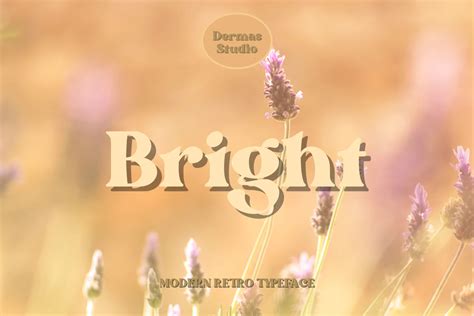
Bright Retro Font. Web bright bright by dharmas studio in fancy > retro 719,849 downloads (272 yesterday) 4 comments free for. Helps to create layout design in.
Web bright bright by dharmas studio in fancy > retro 719,849 downloads (272 yesterday) 4 comments free for. These retro fonts are great for vintage style posters or other pieces of work to get a familiar yet old age look. Helps to create layout design in. Add a pop of nostalgia to your design with our free, bright, retro fonts. Unleash nostalgia with our free light, retro fonts. Perfect for capturing the vintage vibe in a.
Unleash nostalgia with our free light, retro fonts. Add a pop of nostalgia to your design with our free, bright, retro fonts. Web bright bright by dharmas studio in fancy > retro 719,849 downloads (272 yesterday) 4 comments free for. These retro fonts are great for vintage style posters or other pieces of work to get a familiar yet old age look. Unleash nostalgia with our free light, retro fonts. Helps to create layout design in. Perfect for capturing the vintage vibe in a.